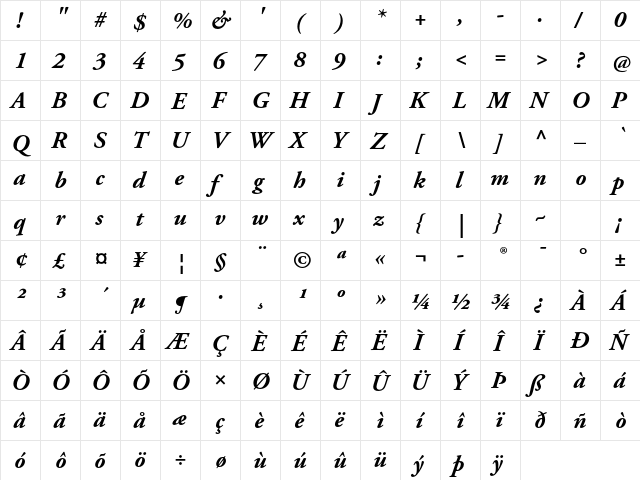
Adobe Garamond Pro Bold Italic
| Designer | Robert Slimbach |
Design Context for Adobe Garamond Pro Typeface
Adobe Garamond Pro is a composed and adaptable typeface that performs quietly and consistently across a wide range of design contexts. The dynamic lean of this cut emphasises speed and emphasis in any layout. Its bold stroke weight gives it real presence on the page.
Pro Tip: Try Adobe Garamond Pro for annotation and caption copy alongside an upright companion — the contrast in angle creates a dynamic but ordered typographic system.